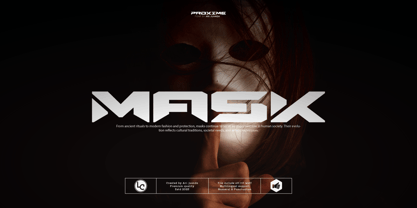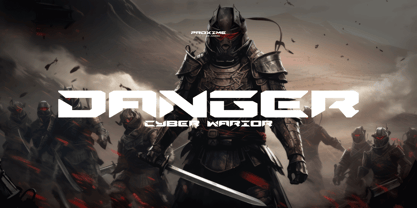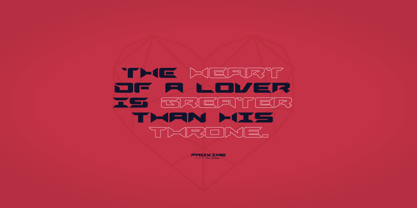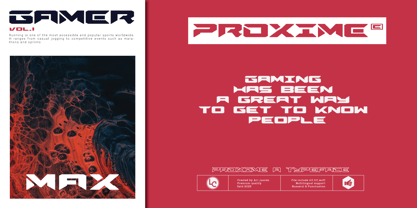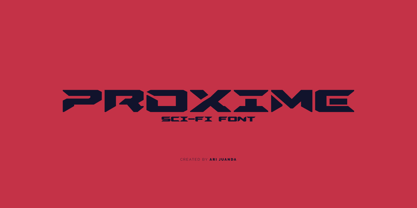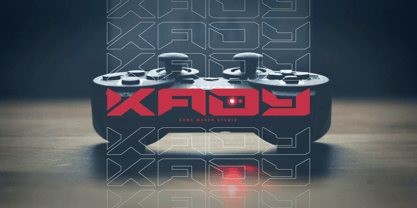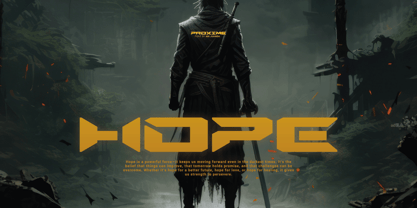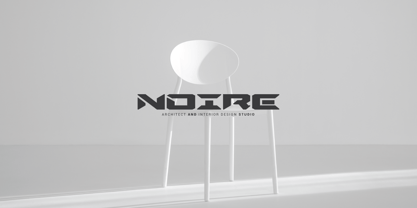
Proxime
The Proxime Font Family was designed by Ari Juanda and published by Linecreative. Proxime contains 2 styles and family package options. More about this family
Introducing the Proxime font, a typeface inspired by games and fictional films, this font is ideal for sports themes, science fiction, games, and futuristic themes. What You Get